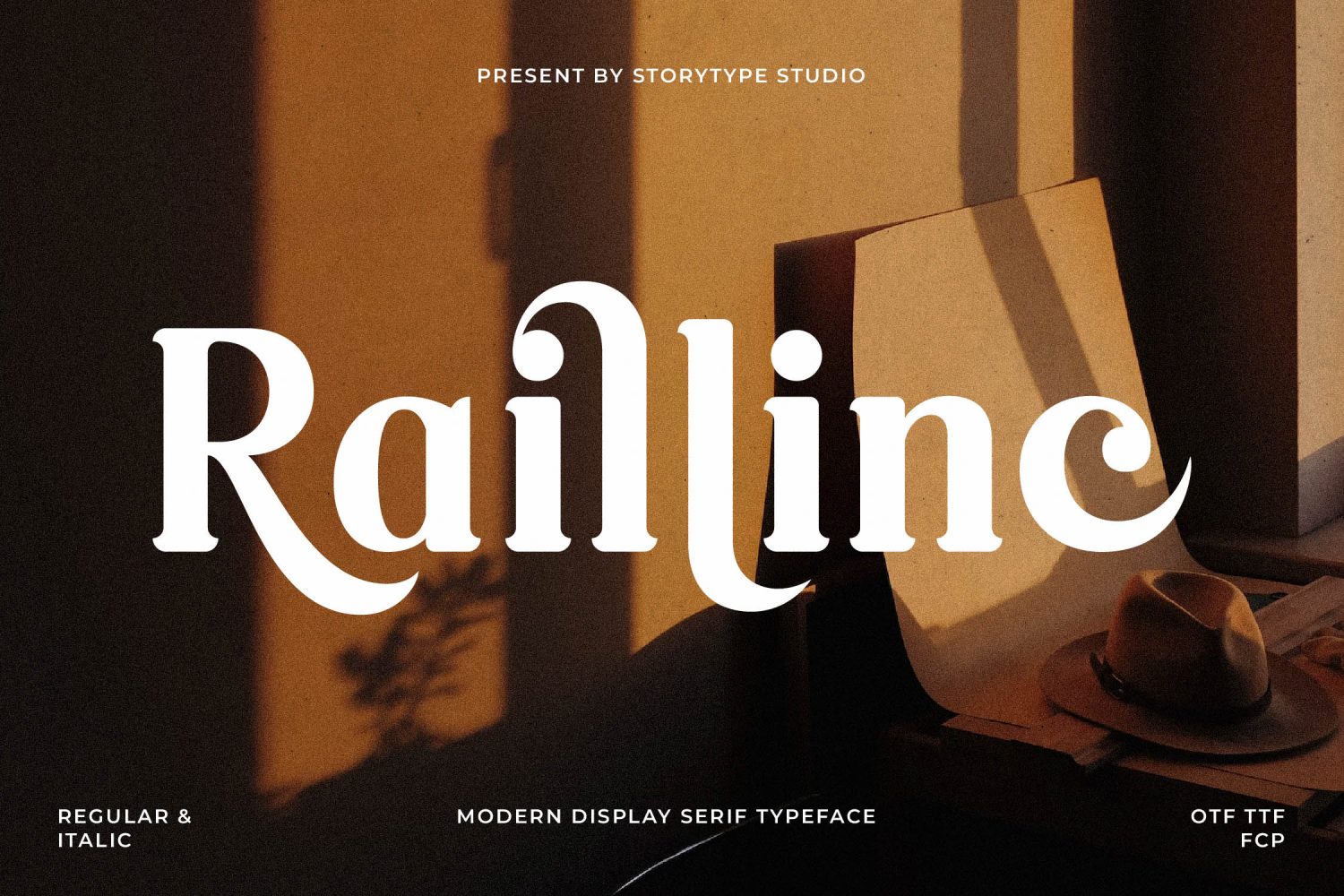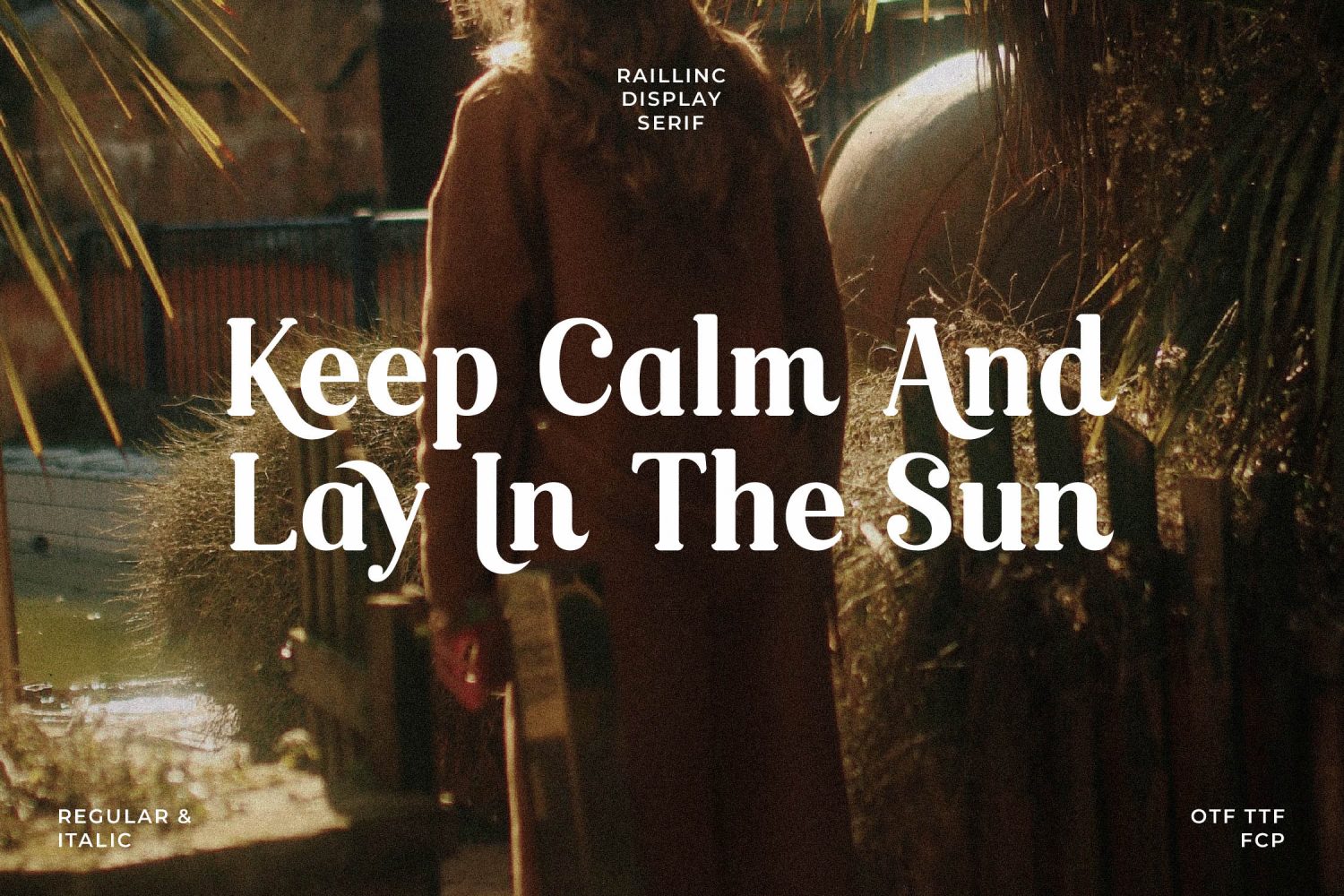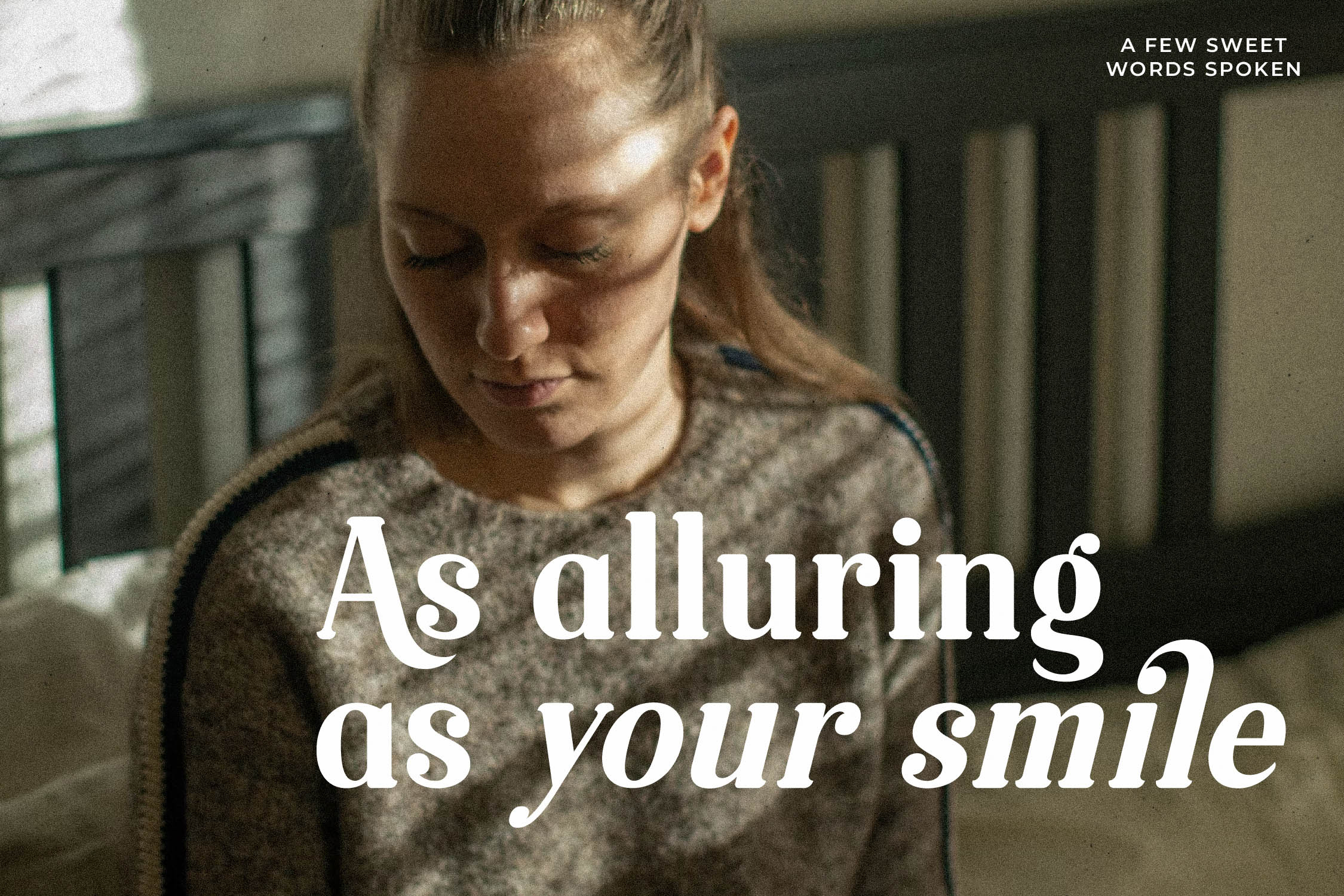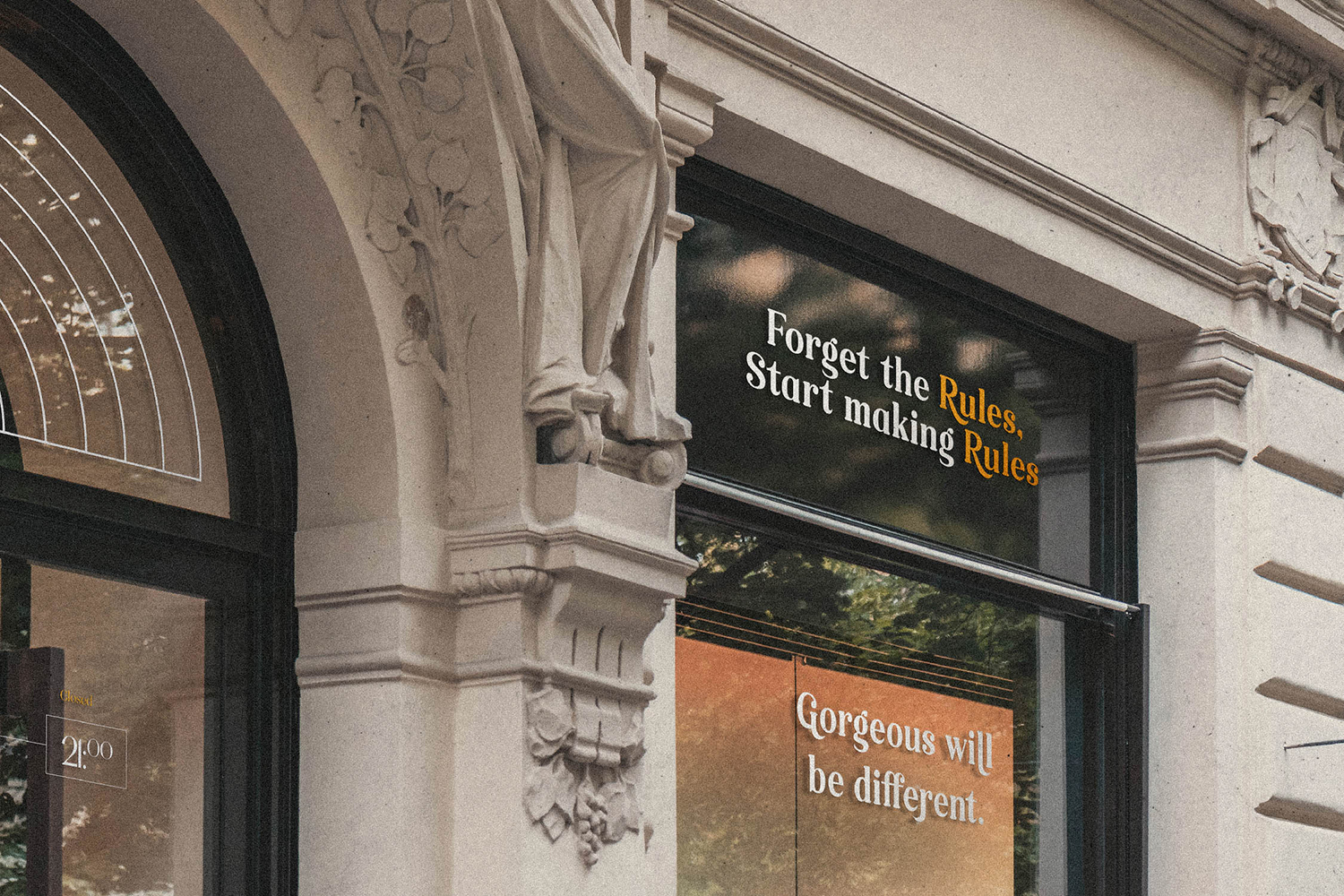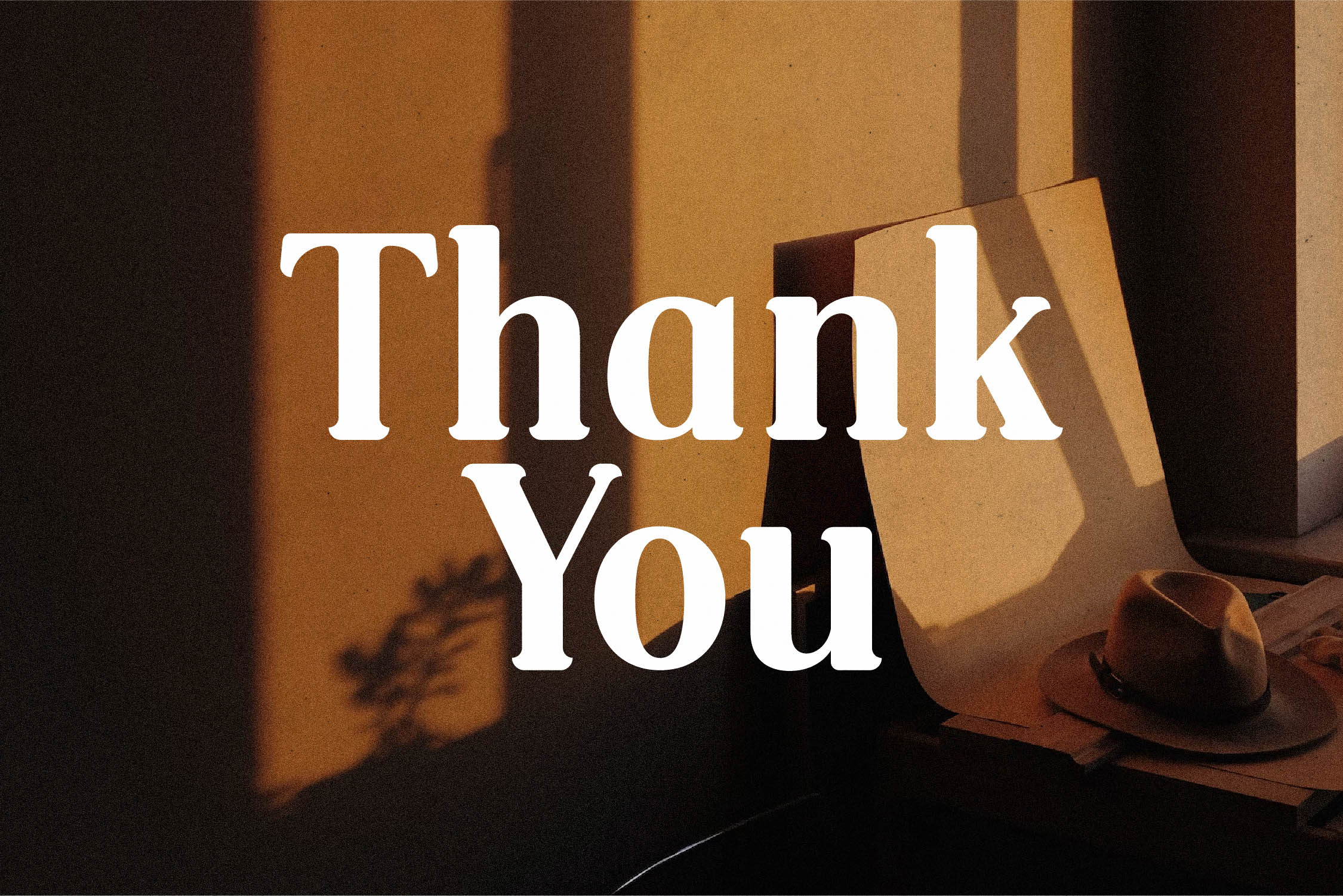
Raillinc Free Font
Raillinc Free Font is a stunning blend of tradition and modernity. Its classic serif style paired with sleek lines and modern curves creates a timeless yet contemporary look that’s perfect for a wide range of design projects. This font has a sophisticated air, perfect for brands looking to convey elegance, prestige, and class. The delicate serifs and refined letterforms make this font a true work of art, perfect for titles, headlines, and body text. Whether you’re creating a luxurious brand, a sophisticated publication, or a refined digital marketing campaign, the Modern Serif Raillinc Free Font will help you to communicate your brand’s message with style and grace. This font has the power to evoke feelings of sophistication, elegance, and timelessness, making it an essential tool for any brand looking to make an emotional connection with its customers.